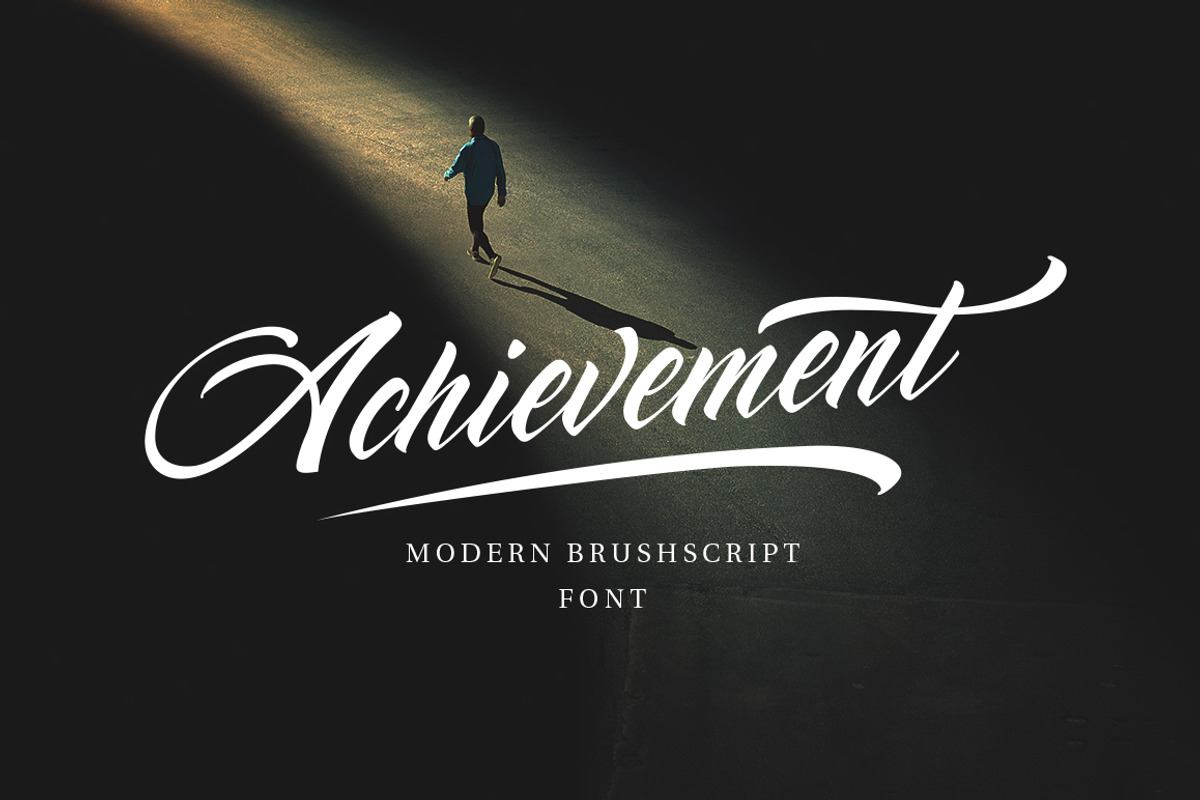
Achievement Script Free Download
Achievement Script Font Free Download
The Achievement Script Font Free Download is a stylish and elegant script font that adds a touch of sophistication to any design. With its smooth curves and beautiful letterforms, this font is perfect for creating stunning invitations, logos, branding, and greeting cards. Its flowing, handwritten style gives a personal and artistic feel, making it an ideal choice for projects that need a refined and graceful touch. Please note, for commercial use, you will need to purchase a license. However, you can easily download the Achievement Script Font Free Download for free for personal use and experiment with its charm. Whether you're working on a wedding invitation, business branding, or a creative project, this font will bring a touch of class to your typography. Download the Achievement Script Font Free Download today and elevate your designs with its elegant style.